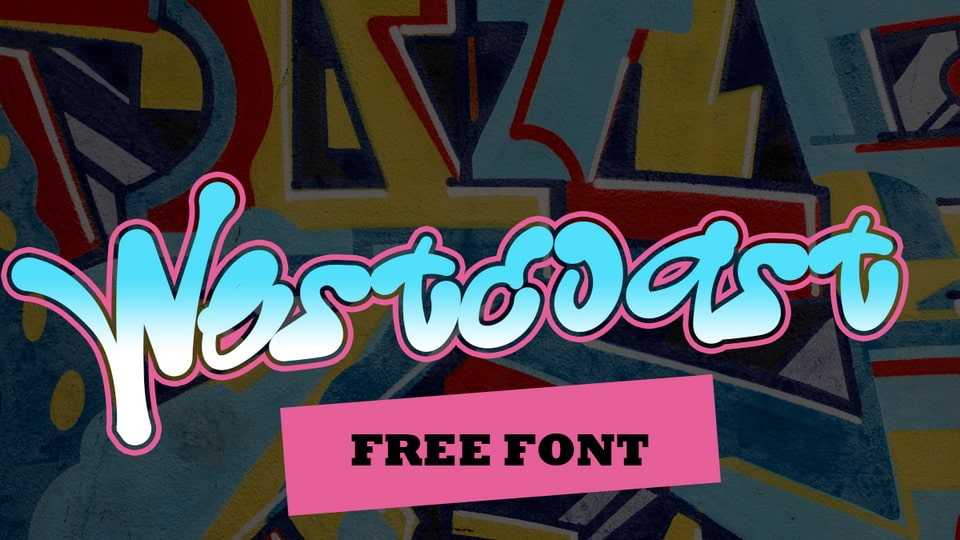
Download Westcoast font, a hand-drawn graffiti typeface that brings street art’s raw energy and urban style to your designs. This dynamic typeface captures the essence of vibrant city walls and daring spray-painted expressions.